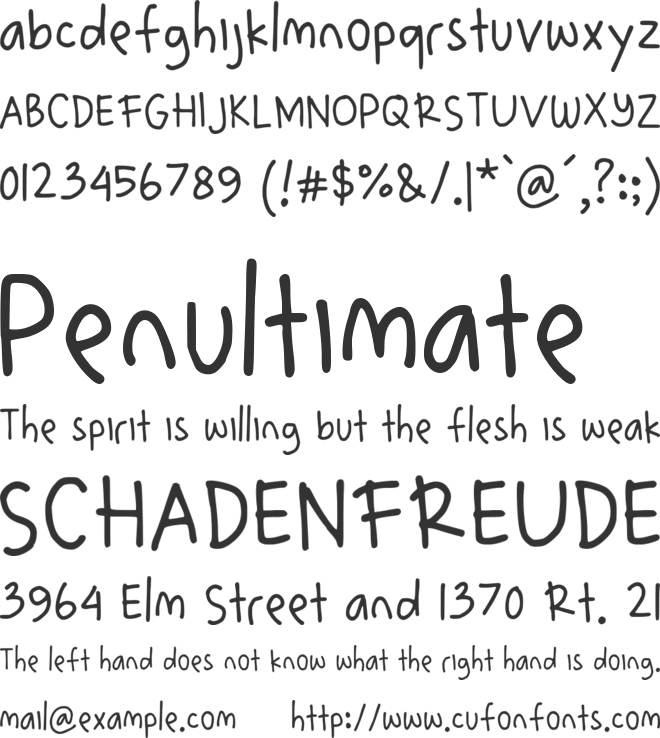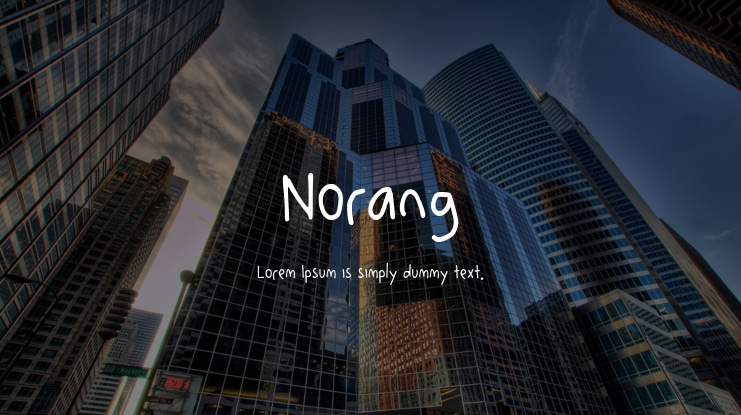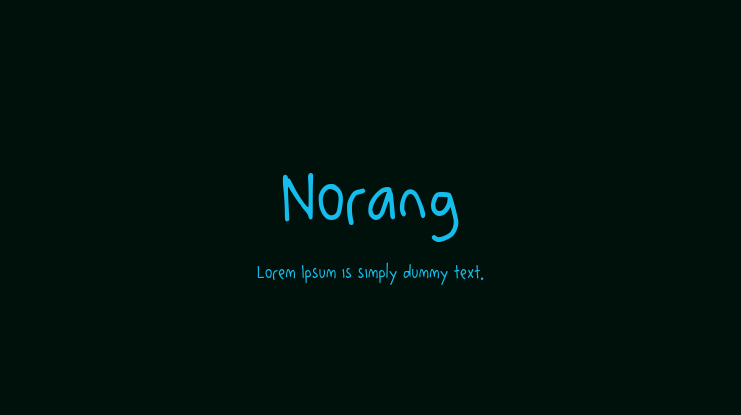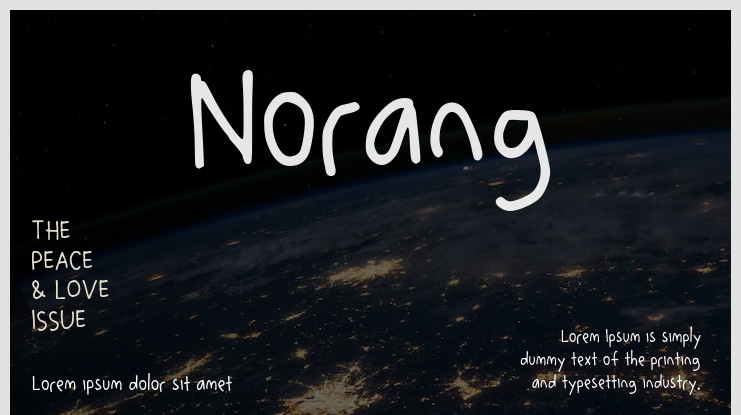
Norang Font
Norang is a quirky and natural handwritten font. Incredibly versatile, this font fits a wide range of designs, elevating them to the highest levels.